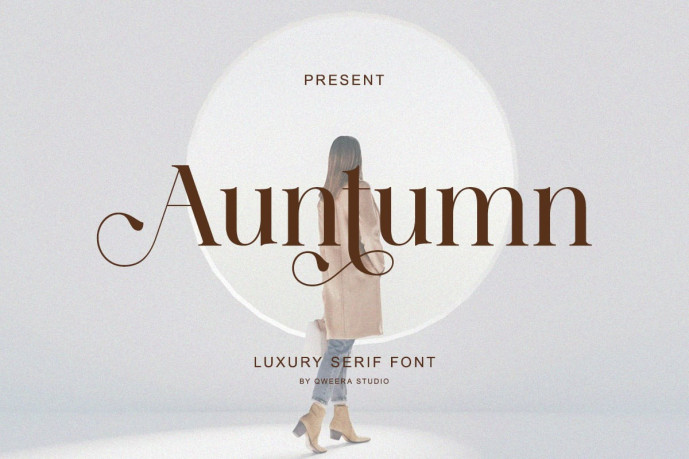
Autumn Serif – Elegant Branding Font
Designer: IdhhamCholid
Autumn Serif – Elegant Branding Font, a sophisticated serif typeface crafted for timeless elegance and modern design aesthetics. With its graceful curves, delicate contrast, and stylish ligatures, Autumn Serif is designed to bring luxury and refinement to your creative projects.
Ideal for branding, logos, fashion editorials, wedding invitations, packaging design, social media posts, and high-end advertising, this typeface elevates every detail with a sense of exclusivity and artistic charm. Its stylish alternates and multilingual support ensure versatility for both display and editorial use.
Bring your brand to life with Autumn Serif – the elegant serif font built for impactful modern branding.
✨ Font Features
• Uppercase & lowercase
• Regular & Italic
• Alternates & ligatures
• Numbers & punctuation
• Multilingual support
� Perfect For
• Elegant branding
• Fashion logos
• Editorial design
• Wedding invitations
• Luxury packaging
• Social media templates